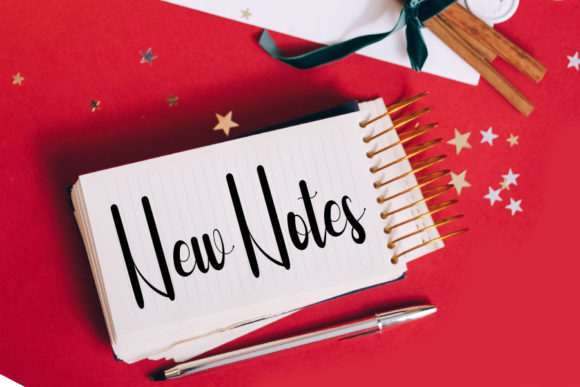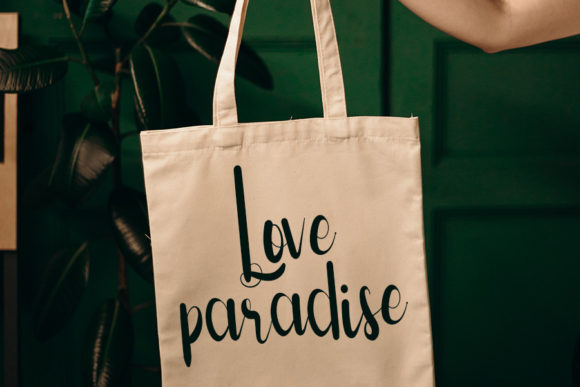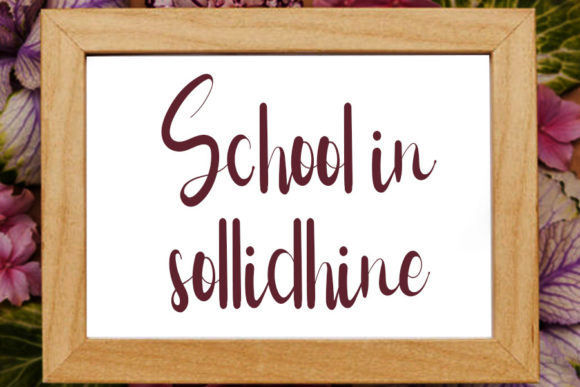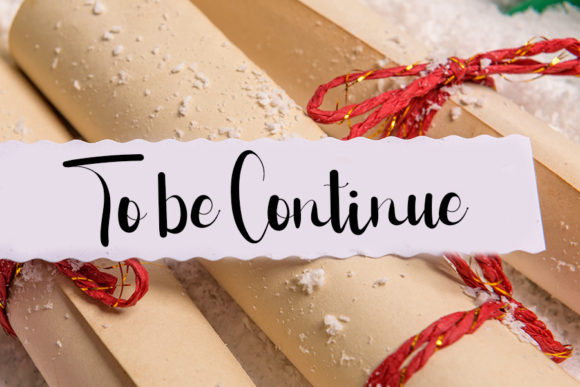
Summer Time Font
About Summer Time Font
Summer Time is a lovely script font featuring charming, playful characters that seem to dance along the baseline. Add this font to your most creative ideas, and notice how it makes them stand out!